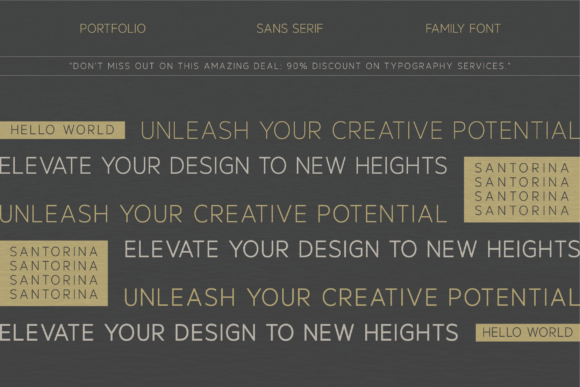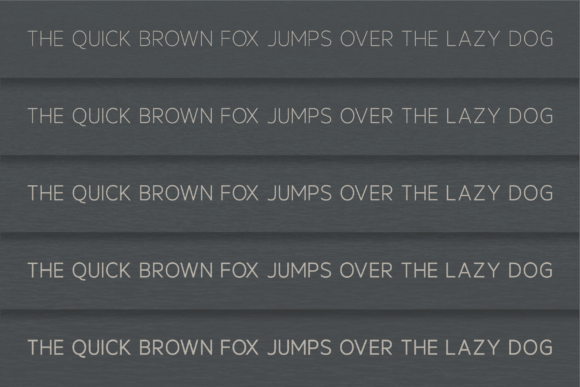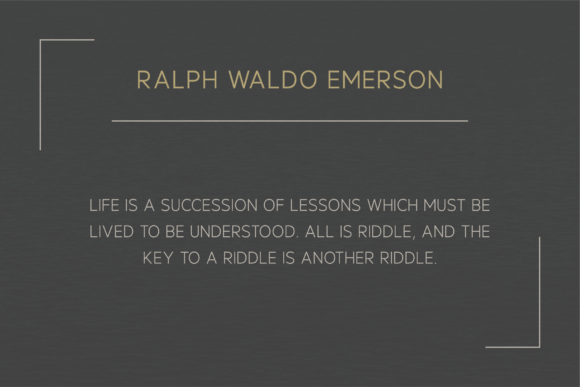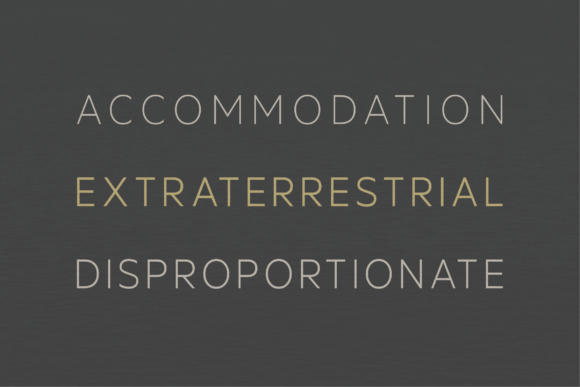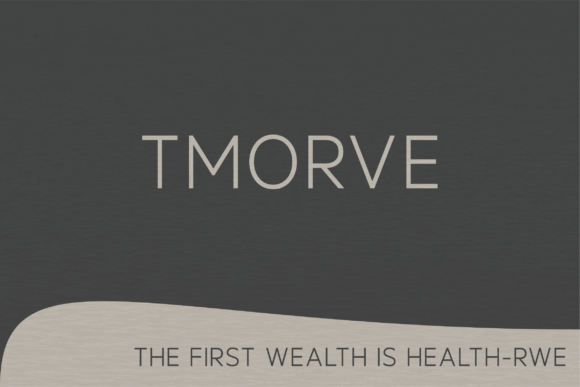
Introduction to Santorina Font Font
Fonts play a crucial role in design, and the Santorina Font font is a typeface that brings both character and versatility to any project. Whether you’re working on a branding project, a website, or a print design, the Santorina Font font offers a unique style that can elevate your work.
Experience the Santorina Font Family, a symphony of elegance and simplicity.
With five uniquely weighted variants, this contemporary sans serif font collection marries the essence of modern style and opulent luxury Painstakingly sculpted to perfection, the Santorina Font elevates your designs – from magazine layouts, unique logos, to cinematic posters – with its refined charisma.
Key Features of Santorina Font Font
Why Choose Santorina Font Font?
The Santorina Font font is more than just a typeface – it’s a design tool that helps you communicate your message with style and clarity. Its unique character set and versatile design make it suitable for a wide range of applications, from elegant invitations to bold headlines.
With its carefully crafted letterforms and balanced proportions, the Santorina Font font ensures readability and visual appeal across all mediums.
What makes Santorina Font font special?
The Santorina Font font stands out with its unique design, exceptional readability, and versatility across various design applications.